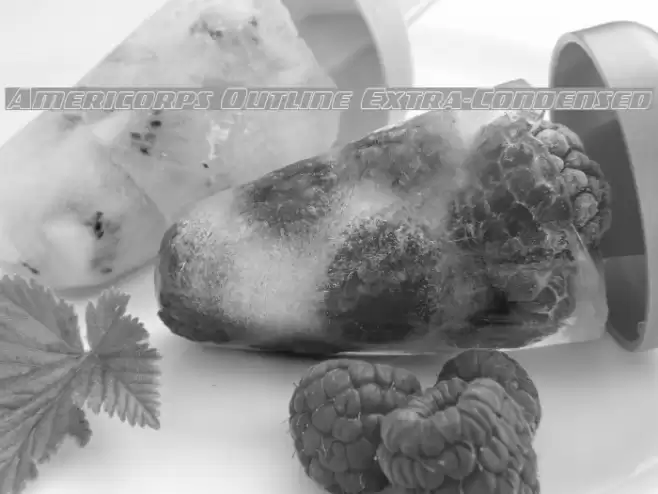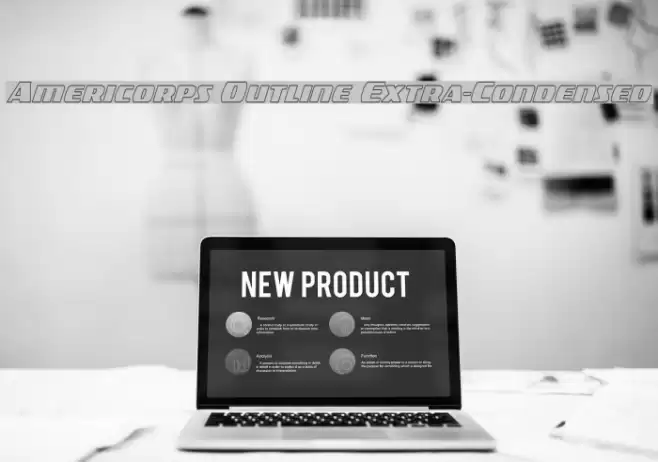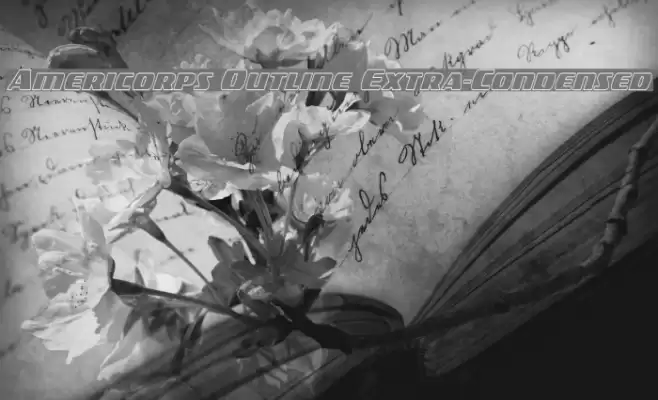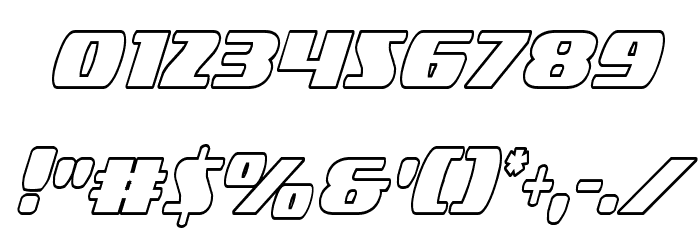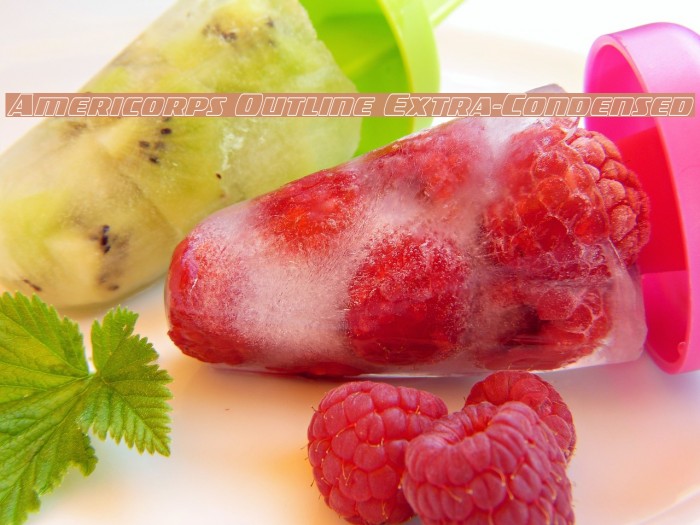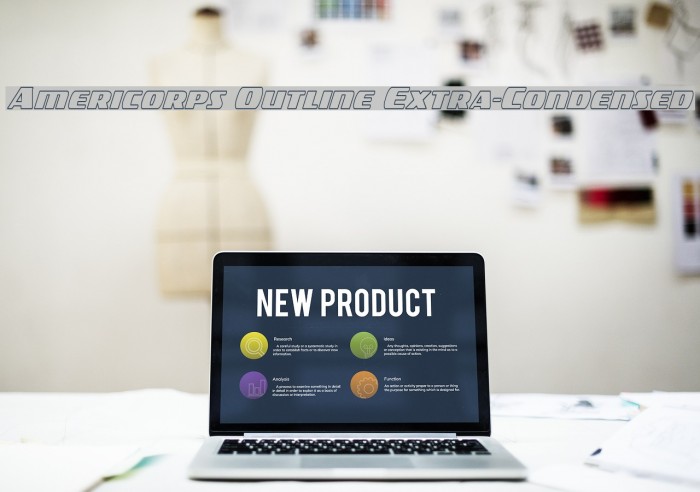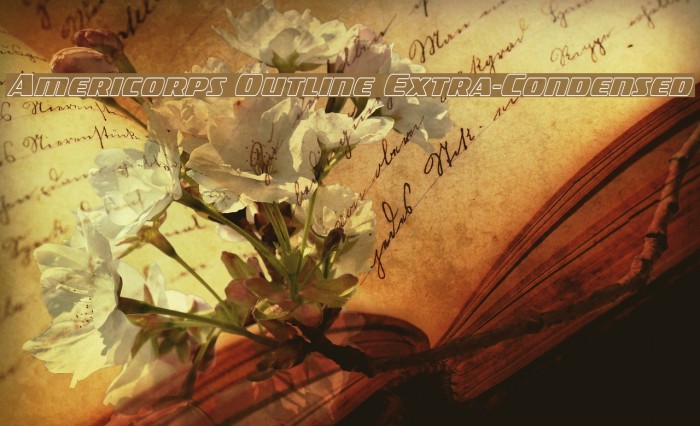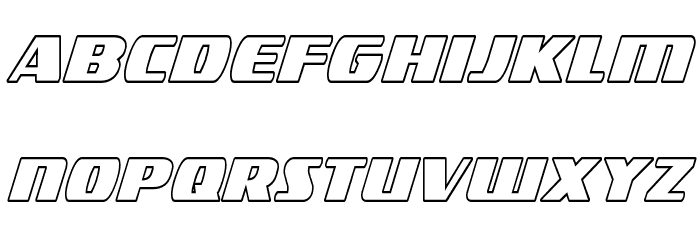
Americorps Outline Extra-Condensed Font
Americorps Outline Extra-Condensed Description
This font features a bold, outlined style with an extra-condensed width, giving it a striking and modern appearance. The uppercase and lowercase letters maintain a consistent geometric form, with sharp angles and clean lines that enhance its contemporary look. The numerals and special characters follow the same design principles, ensuring uniformity across all glyphs. The outlined nature of the font adds a unique dimension, making it suitable for eye-catching designs. Its extra-condensed width allows for efficient use of space, making it ideal for projects where space is limited but impact is desired.
A bold, outlined, extra-condensed font with a modern geometric style from Uncategorized fonts.
- Proposed Projects: Ideal for posters, headlines, branding, and any design requiring a modern and impactful aesthetic.